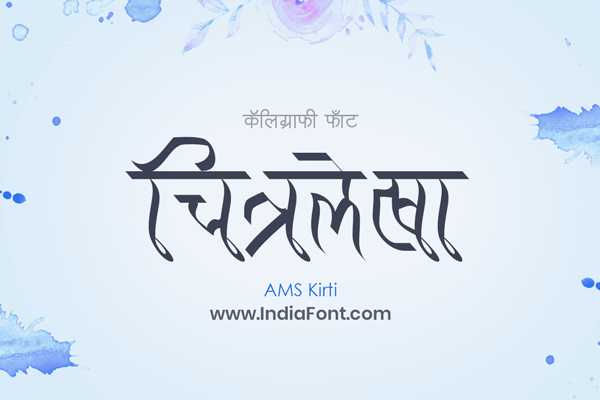
AMS Kirti
Celebrate uniqueness and individuality with AMS Kirti, a decorative font that stands out from the crowd. Whether you're seeking free AMS fonts, exploring AMS Kirti font download options, or looking for AMS decorative fonts, AMS Kirti will add a touch of personality and charm to your designs.
About AMS Kirti Font
Celebrate uniqueness and individuality with AMS Kirti, a decorative font that stands out from the crowd. Whether you're seeking free AMS fonts, exploring AMS Kirti font download options, or looking for AMS decorative fonts, AMS Kirti will add a touch of personality and charm to your designs. This decorative font combines elegance with functionality, making it perfect for various design applications.
AMS Kirti is a professionally crafted decorative typeface that brings clarity and style to your projects. Designed with attention to detail, it supports hindi and marathi characters flawlessly.
Whether you're working on modern-contemporary-projects, magazines-newspapers, signage-banners, or other creative projects, AMS Kirti delivers consistent performance across both digital and print media. This carefully designed typeface ensures readability and visual appeal in all your design work.
About AMS Kirti Typography Style
AMS Kirti is a professionally crafted decorative font that exemplifies modern Hindi typography design. This free font is perfect for designers seeking versatile design applications.
Available in 1 weight and supporting hindi, marathi scripts, AMS Kirti offers exceptional versatility for both digital and print media. Whether you're working on modern-contemporary-projects, magazines-newspapers, signage-banners, this carefully designed typeface ensures consistent quality and professional results across all your typography projects.